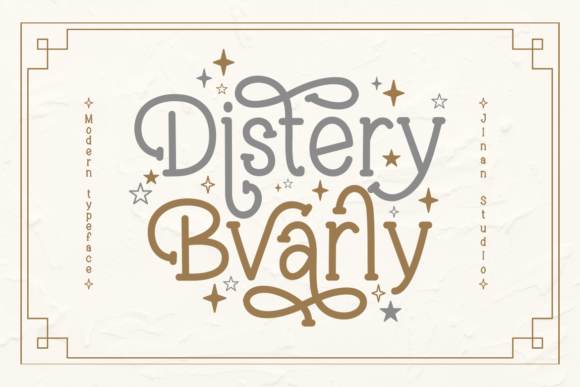
Distery Bvarly Font
Distery Bvarly is a stylish and modern slab serif font, suitable for a wide spectrum of applications. From greeting cards to headlines, branding and packaging, this font will guarantee a happiness touch to each of your creations!